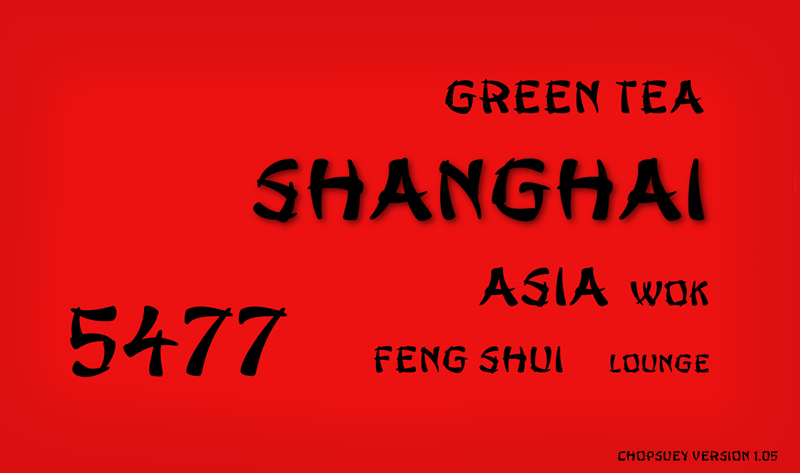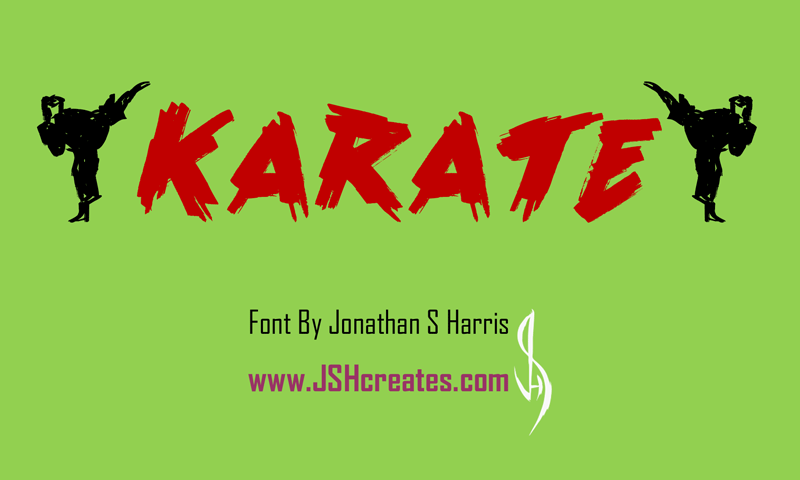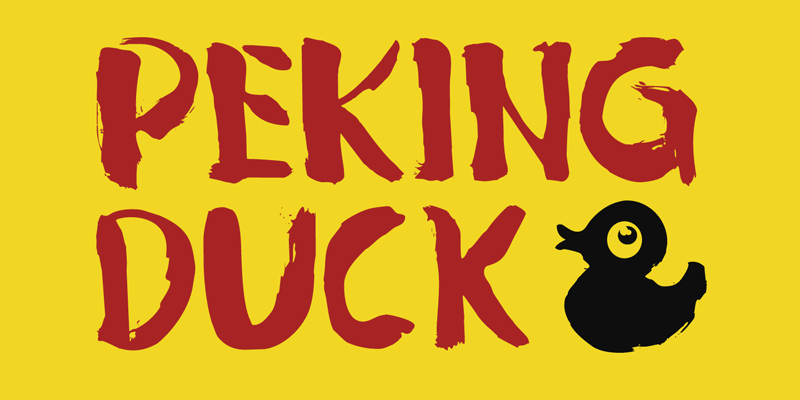
Sometimes, we find any font and refer it to any specific ethnicity. It is what happened to Chop Suey font. People think this font represents Asian culture, especially Chinese.
But chop suey is also cool and has been used for decades. In this article, we will explain chop suey, its history, and the reason why people find chop suey font racist. So, let’s check it out!
What is Chop Suey Font
You might find many fonts with a Mandarin-look style. It’s called chop suey font. For years, this font has been used to represent Asian culture, especially Chinese. Since then, western-type designers have developed a number of their own versions of chop suey.
If you’re interested to find this kind of font, you may check it on the internet with some Chinese vocabulary. For example, Peking, Wonton, Jing Jing, Ginko, Shanghai, Fantan, China Doll, Martial Arts, Karate, Chow Fun, Ching Chang, and Chang Chang.
History of Chop Suey Font
Typography artist Linus Boman sat down with designer Raven Mo, to learn more about the so-called “chop suey” font that has been fairly commonly used to identify Chinese food originating in the United States.
The chop suey font is a subcategory of the so-called “ethnic” presentation fonts and is a uniquely American innovation rooted in the 170-year history of Chinese immigrants in the United States.
Is Chop Suey Font Racist?
It is worth noting that in 1930s America, some Chinese immigrants themselves used the chop suey font on restaurant signs, menus, and advertisements to enhance the exotic appeal of their establishments.
A very private Asian American is disrupting the beauty industry, and “oriental simulation fonts” (or letter forms designed with the aesthetic characteristics of a particular culture) did more than resemble Chinese calligraphy.
Decorative fonts such as El Dorado and Taco Salad were designed to represent Mexico. The same applies to the Pad Thai font, whose strokes are borrowed from the Thai script. Likewise, many crude hand-drawn fonts claim to capture the aesthetics of the entire African continent.
Typography evokes emotions. In a visually saturated culture, we live and breathe type, devouring letters and shapes with many implications. Finally, in an age of prejudice, the racialization of type is important as long as it leaves room for nuance in context.
But there are also examples of fonts that harmlessly evoke national or regional pride. Let’s take a look at his distinctive Euskara script, which is used in seven provinces of the Basque Country and is used on everything from monuments to restaurant menus.
The “big-footed, big-eyed Roman character” was his 19th-century chronicler of the monuments of the region, which emerged at the height of his Basque nationalism in the late 19th century.
So is chop suey font racist? It is depending on your perspective and opinion. Many Asians, especially Chinese, they never triggered by this font. Even many people are using it for restaurant names, Asian shops, and many more.
Example of Chop Suey Font
There are font styles that you can use. Here are some examples of this font.
1. Karate
Chop Suey Font
Karate font is a font with bold shadings like someone is doing karate. This font is suitable for those of you who want to do promotions for your dojo or karate arena.
2. Peking Duck
Chop Suey Font
This Peking Duck is not the cuisine you commonly know. Instead, it has a similar look to a Mandarin letter written with a brush. The shape is simple but still highlights the thick side of Asian culture.
3. Jing Jing
Chop Suey Font
Jing Jing is a font that is very similar to Chinese writing. The form of the writing is like writing with a brush, conical from big to small or small to big so that it leaves a distinctive impression of Chinese culture.’